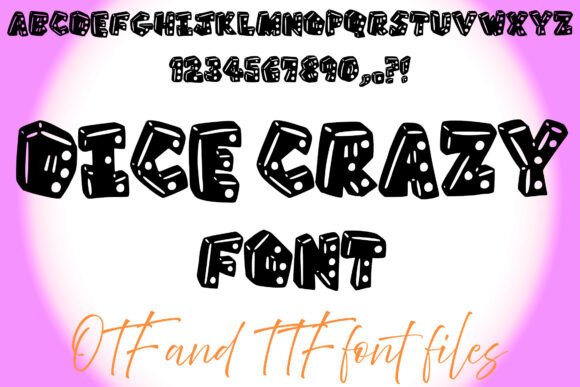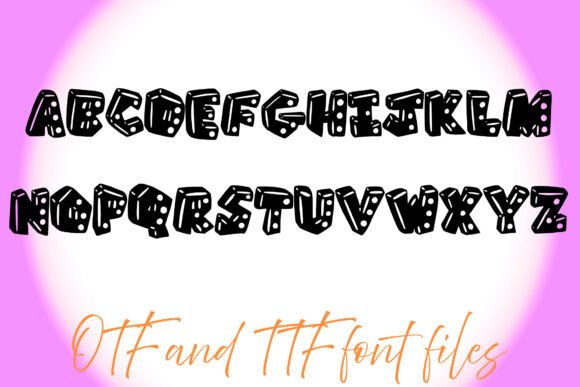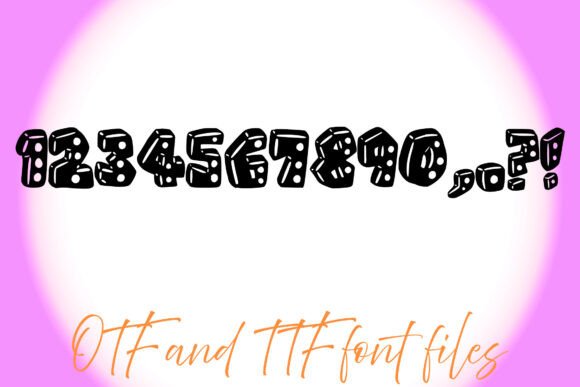
Dice Crazy Font
About the Dice Crazy Font
Add a touch of class to your work with the Dice Crazy Font, a truly exceptional typeface. Dice Crazy is an incredibly unique and quirky font. Masterfully designed to become a true favorite, this font has the potential to bring each of your creative ideas to the highest level!
Dice Crazy’s playful, slightly chaotic energy makes it ideal for headlines, short taglines, logos for youthful brands, and packaging designs needing a fun, quirky touch. It excels in eye-catching posters or social media graphics where bold statements are key. However, its unconventional forms make it unsuitable for body text or UI elements requiring high readability. Extended use will likely strain the reader.
Pairing Dice Crazy with a clean sans-serif like Open Sans for body copy creates a strong visual contrast and balanced readability. For a more sophisticated feel, consider pairing it with a classic serif like Garamond, allowing Dice Crazy to pop as a striking headline element. Alternatively, a geometric sans-serif like Montserrat can provide a modern, yet grounded counterpoint.
The font’s overall personality is best described as bold and playful, with a touch of irreverence. It is perfectly suited to brands targeting a younger demographic or projects that demand attention through unconventional visual language.
Dice Crazy Font Usage Examples
Dice Crazy Font Example